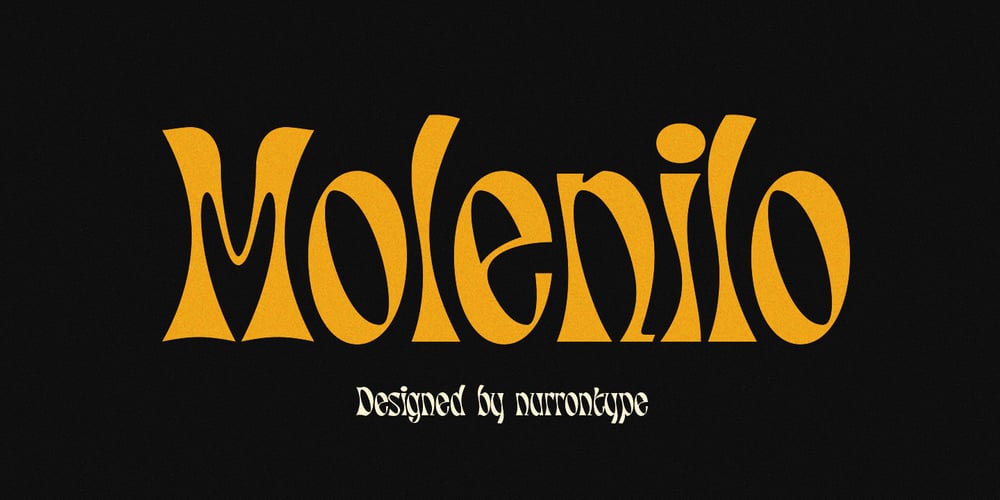
Molenilo Font Family was designed by Nurron Shodiqin and published by Nurrontype. Molenilo contains 3 styles and family package options. Molen is a reverse contrast display font with unique characteristic. It would make your project different than any others. Each glyphs was create to make a harmony. It’s gonna be enlighten your work, definitely.